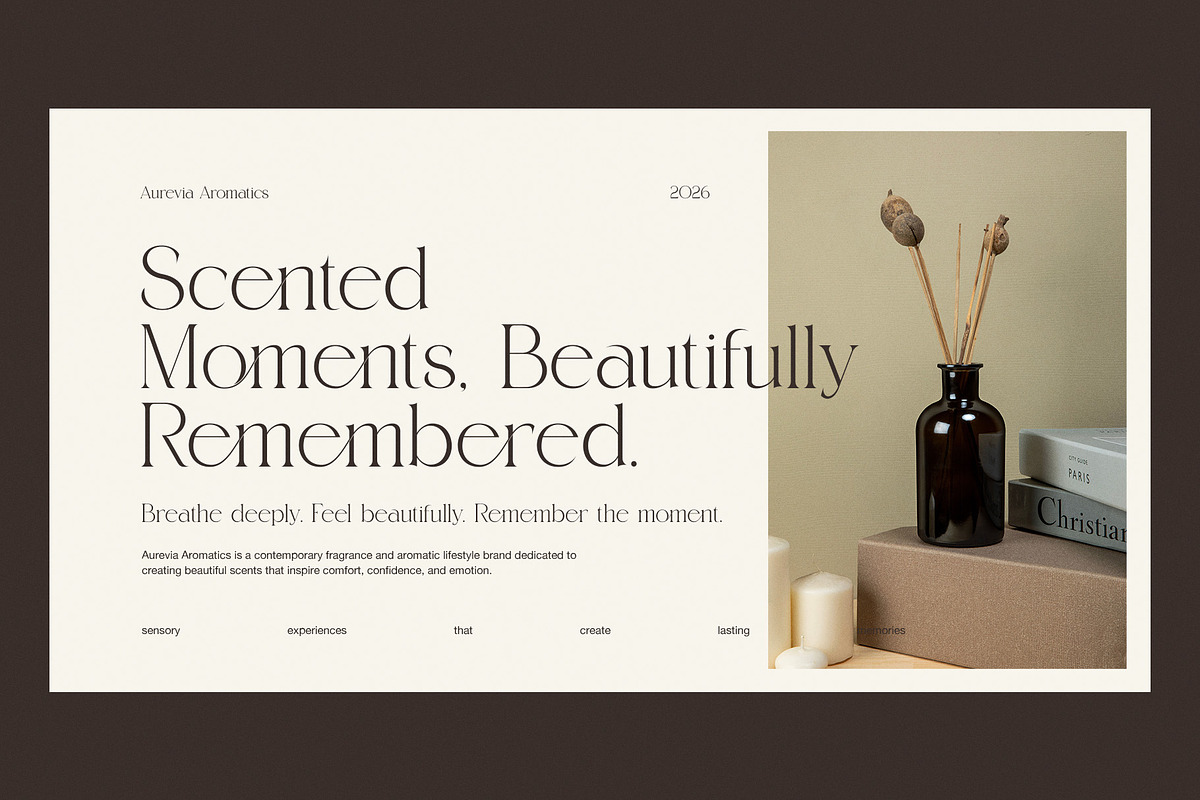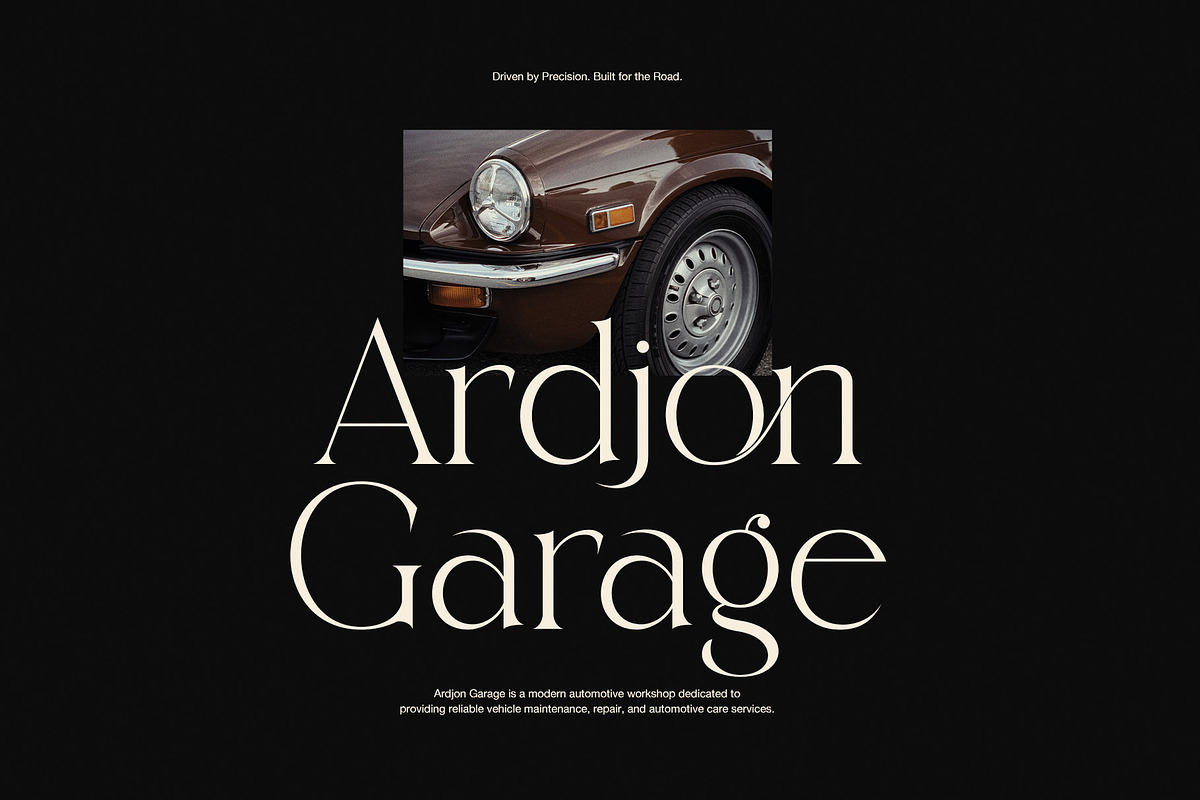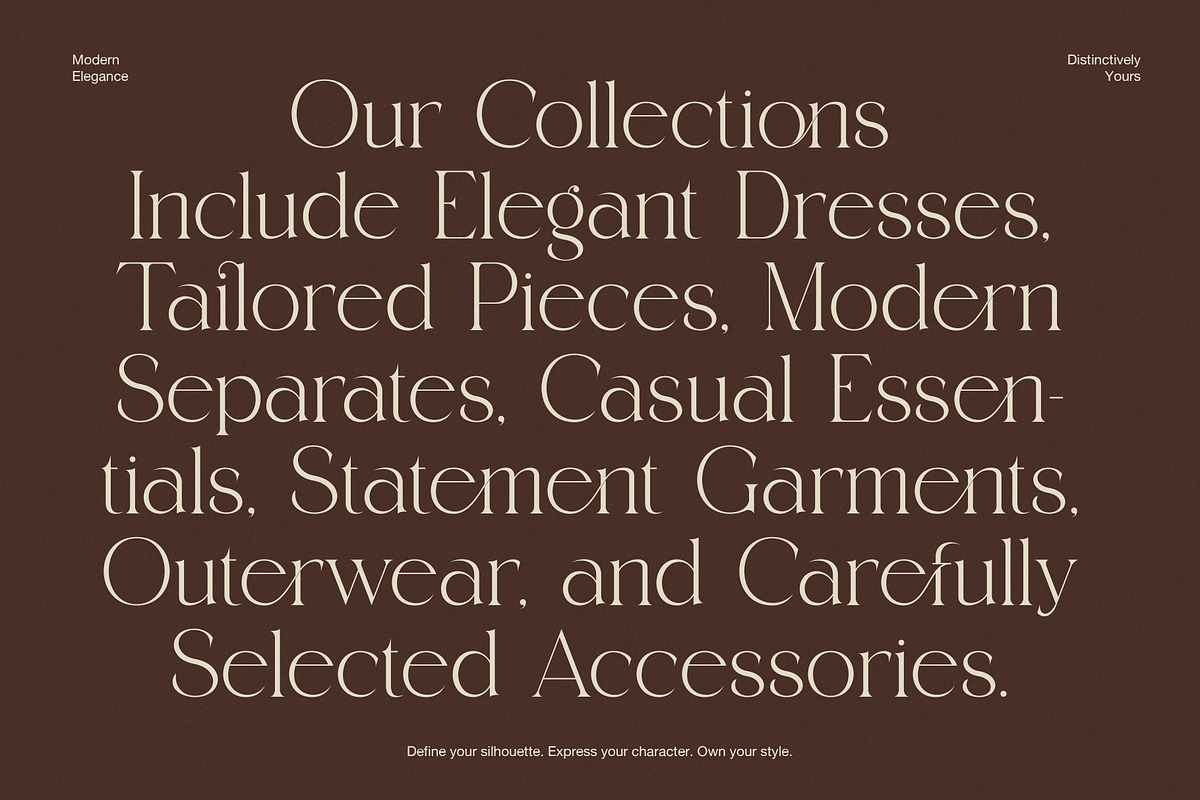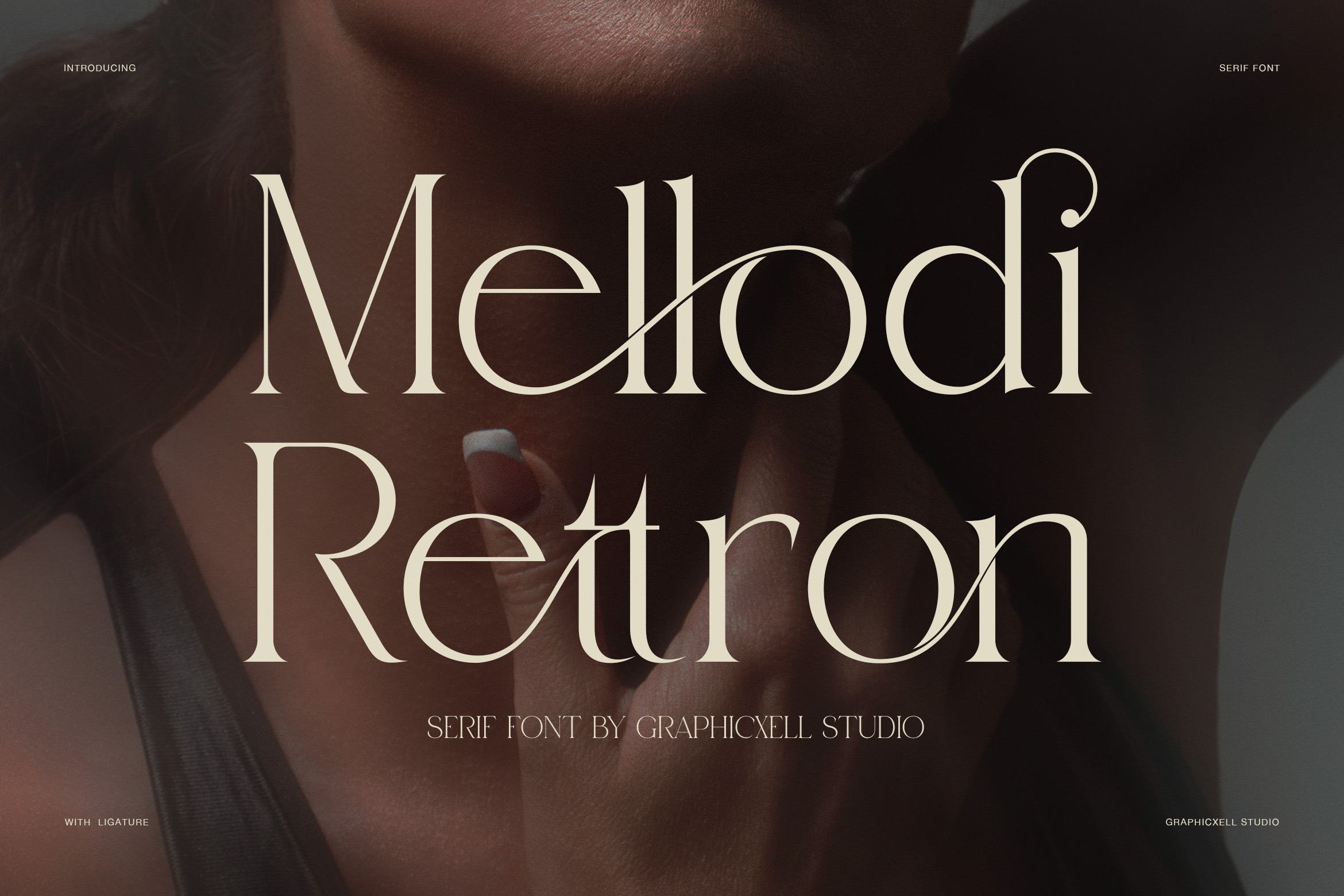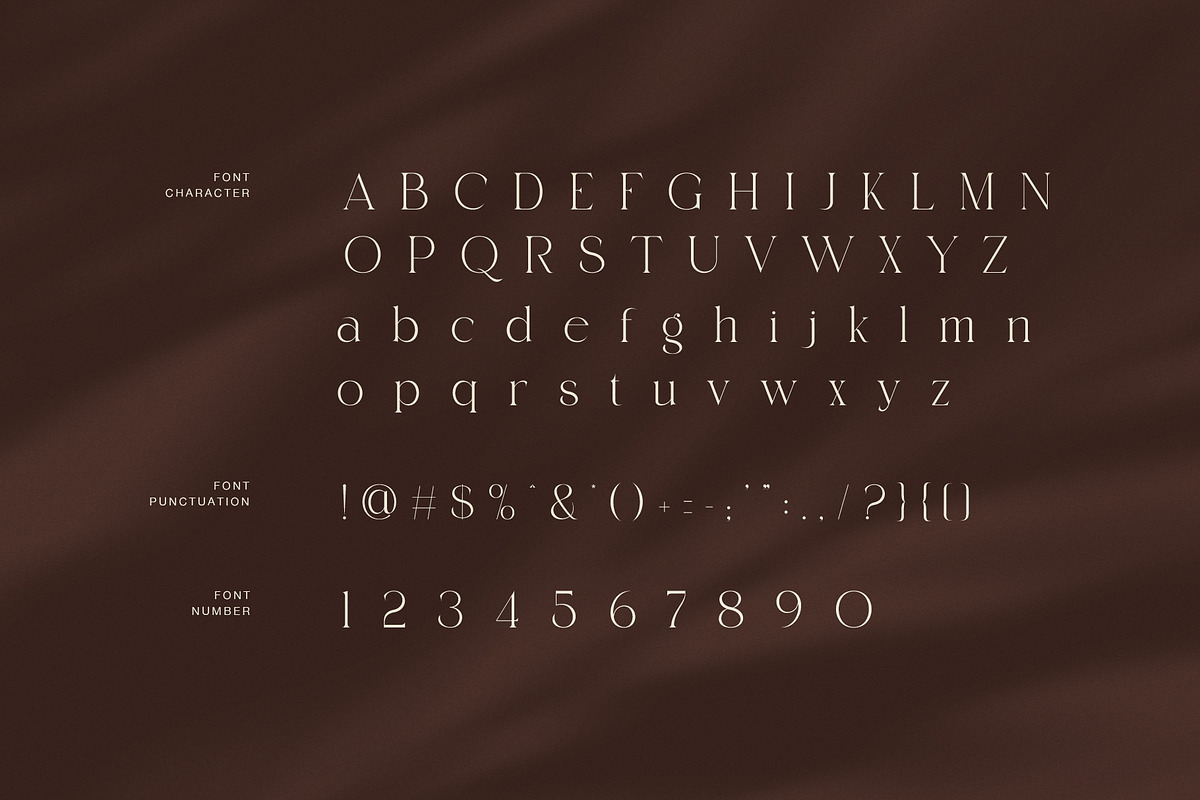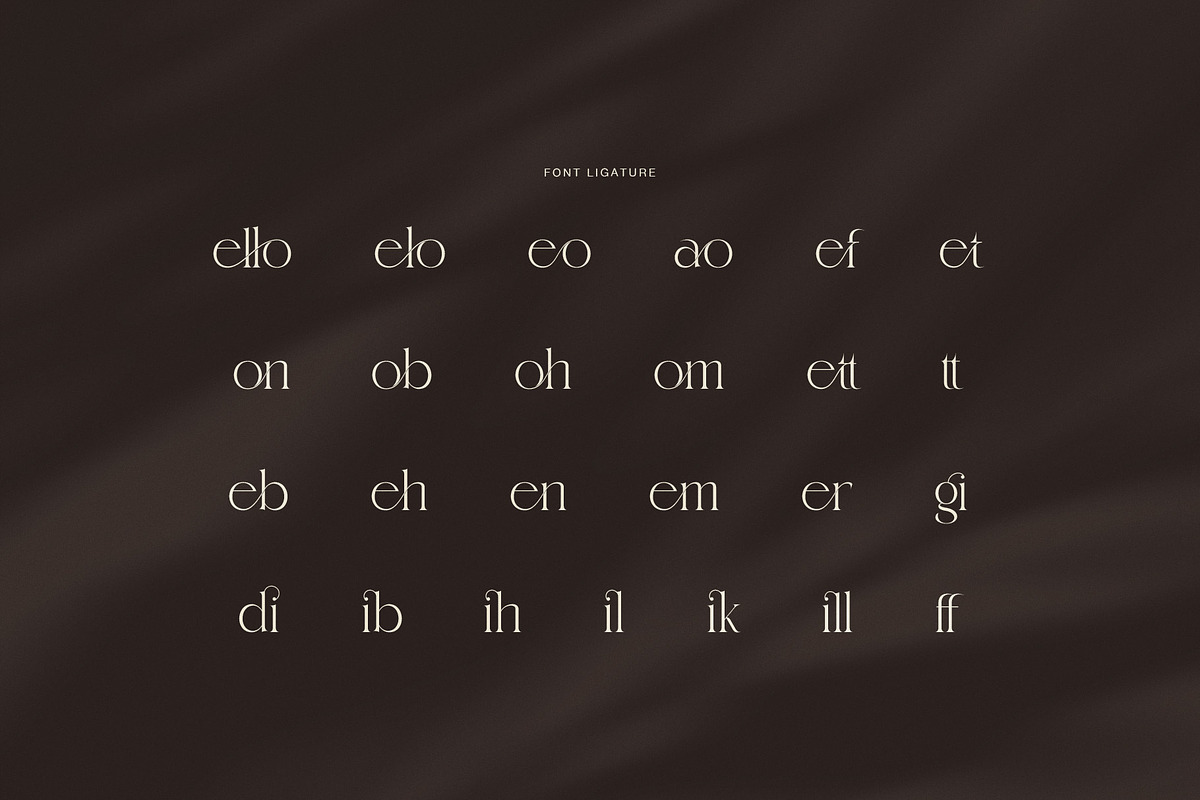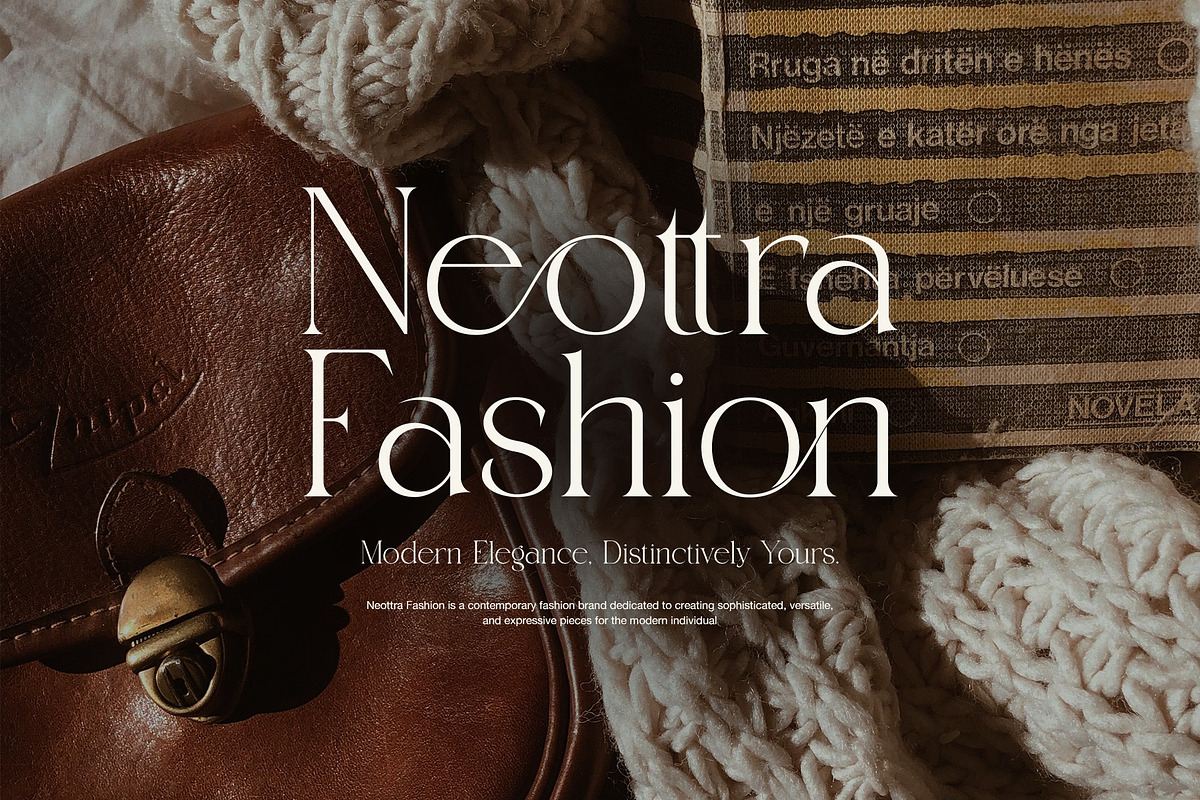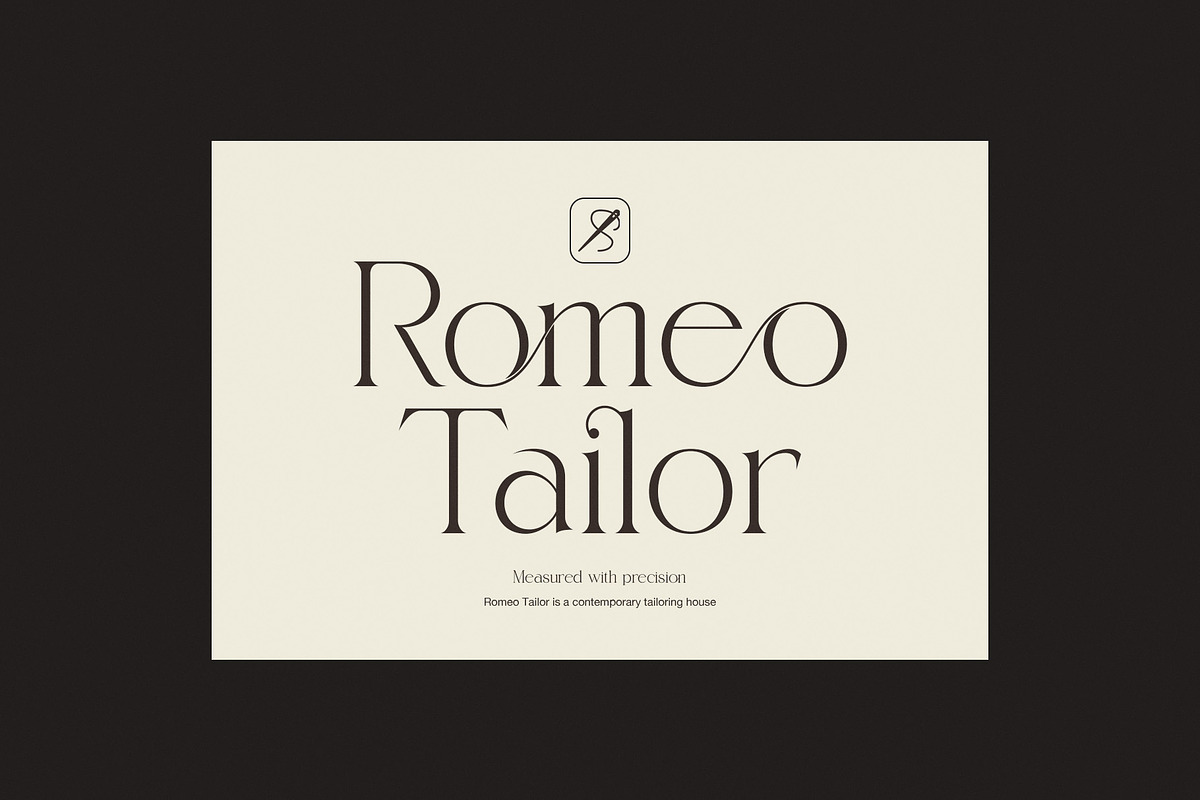
Mellodi Rettron Modern Serif Font
Mellodi Rettron is a modern serif font created for fashion, luxury, editorial, and creative branding. It combines strong thick-and-thin contrast with delicate hairlines, graceful curves, and refined serif details. As a result, every headline has a polished and stylish appearance.
The typeface has a strong editorial feel. However, its flowing letter details give it a more expressive personality than a traditional serif. The elegant proportions make Mellodi Rettron especially effective when used at large sizes. Therefore, it can become the main visual element in a logo, campaign, magazine cover, or brand presentation.
Its distinctive lowercase characters add further character. In particular, the curved forms and refined terminals create a sophisticated rhythm across words.
Designed for Fashion and Luxury
Mellodi Rettron works naturally with projects that need a premium and fashionable tone. Its clean structure also allows it to fit modern layouts without feeling too heavy.
Use Mellodi Rettron for:
Fashion magazines and editorial covers
Luxury fashion branding
Beauty and cosmetic identities
Boutique logos and brand names
Wedding invitations and stationery
Perfume and fragrance packaging
Lifestyle campaigns and advertising
Hotel and hospitality branding
Product labels and packaging
Social media graphics and posters
Moreover, the font pairs beautifully with photography, neutral colors, dark backgrounds, and minimalist layouts. Its high contrast can create an elegant visual hierarchy while keeping the overall design refined.
Expressive Ligatures
One of the key features of Mellodi Rettron is its collection of stylish ligatures. These special combinations create flowing connections between letters and give selected words a custom appearance.
Consequently, designers can create more memorable logos, headlines, and short phrases without adding extra decorative elements. The ligatures are especially useful for fashion names, beauty brands, editorial titles, and premium packaging.
Refined Display Typography
Mellodi Rettron is best suited to display use, where its fine details can be clearly seen. It is ideal for large headlines, brand names, quotes, campaign messages, and other prominent text.
In addition, the font includes uppercase and lowercase letters, numbers, punctuation, and symbols. The combination of classic serif structure and modern details makes it flexible across many creative projects.